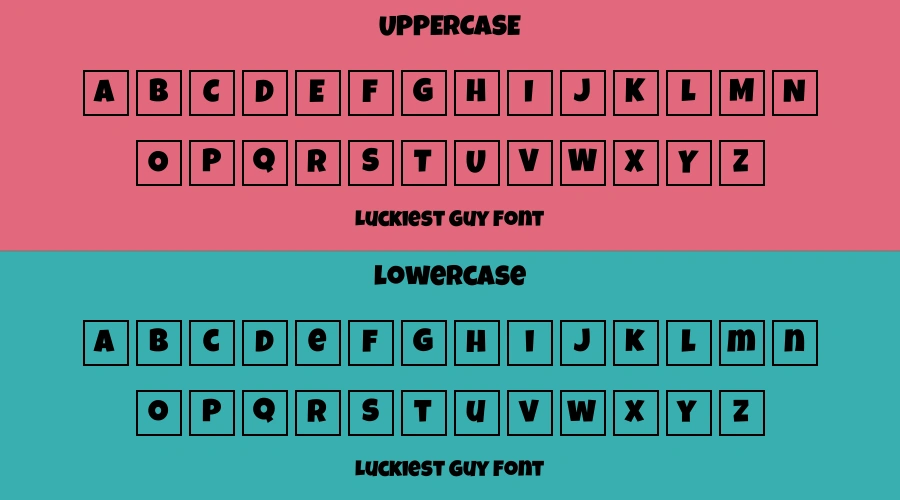
About Luckiest Guy Font
Designed with precision, Luckiest Guy Font merges engineered curves with functionality in every character. This versatility makes it particularly effective for government publications, where consistency and design innovation directly impact communication quality. Each letterform demonstrates meticulous craftsmanship.
Technical excellence shines through elements like hand-drawn quality and word marks, enhancing typographic versatility. In logos settings, Luckiest Guy Font proves its worth through superior texture integration. The thoughtful execution of joint detail and technical innovation ensures professional results.